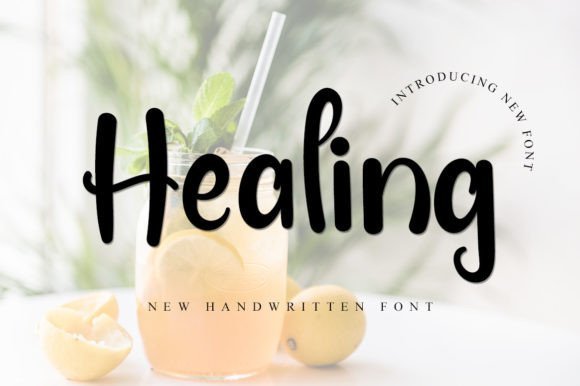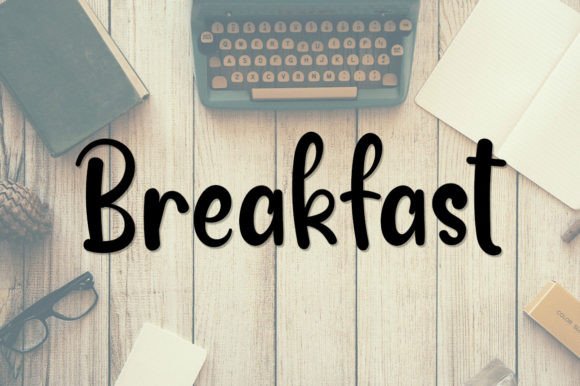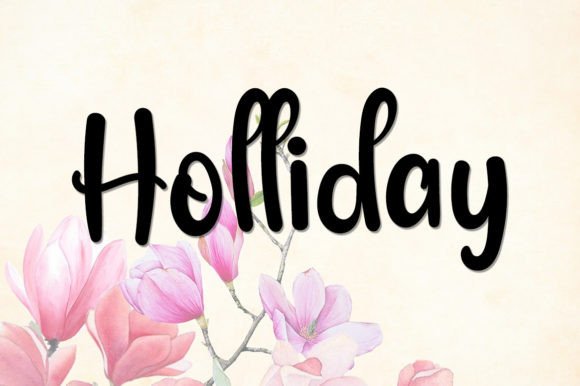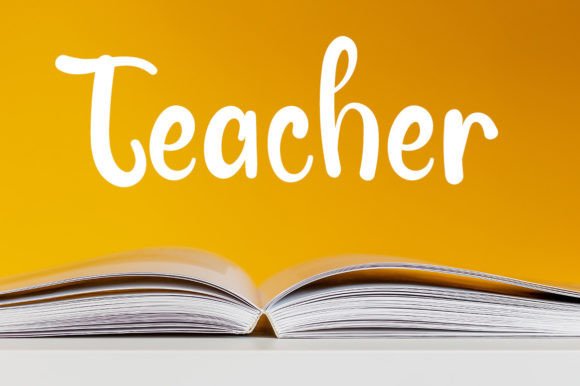
Discover the Power of Healing
There’s nothing quite like the thrill of creating something new. The blank page, the spark of an idea, and the rush of excitement as it all comes together. For designers, this feeling is a regular occurrence, but it’s one that never gets old. Whether you’re working on a personal project or a client brief, the process of bringing an idea to life is what makes it all worth it.
One of the key elements that can make or break a design is the font. And that’s where the Healing Font comes in – a beautiful, elegant, and joyful typeface that’s perfect for adding a touch of warmth to any project. Whether you’re working on a formal document or an informal social media post, this font is sure to bring a smile to your face and a sense of calm to your design.
Key Features of “Healing Font”
- Unique Characteristics: The font features a unique blend of modern and traditional elements, with intricate details and subtle nuances that evoke a sense of serenity and healing.
- Customization Options: The font includes a range of OpenType features, such as ligatures, swashes, and stylistic sets, allowing designers to add a personal touch and create unique typographic combinations.
Healing Font Review
Overall, I was quite impressed with the Healing Font, and here’s why:
- ✨ Beautiful, hand-drawn style that adds a touch of warmth to any design project.
- ✨ A wide range of styles, from casual to elegant, making it suitable for various applications.
- ✨ Good for creating a sense of serenity and calmness, which is perfect for wellness-related content.
However, there are some limitations that I’d like to point out:
- ⚠️ Limited character set and font sizes may not be suitable for large blocks of text.
- ⚠️ May not be the best choice for designs that require a more modern or edgy look.
Despite these limitations, I think the Healing Font is a great addition to any designer’s toolkit. It’s perfect for creating a soothing and calming atmosphere, and its hand-drawn style adds a unique touch to any design project. If you’re looking for a font that evokes feelings of serenity and relaxation, I’d definitely recommend giving the Healing Font a try.
Tip: Use the Healing Font in combination with soothing colors and gentle typography to create a calming atmosphere in your design.
Tip: Use the Healing Font in combination with subtle texture overlays to create a sense of depth and visual interest.
Tip: Use the Healing Font in combination with calming backgrounds and gentle animations to create a soothing presentation.
The Healing Font is ideal for:
- Meditation and mindfulness materials
- Therapy and counseling resources
- Wellness and self-care promotions
- Calming and soothing brand identities
Alternatives to Healing Font
Great Vibes is a beautiful, elegant script font that conveys a sense of serenity and calmness. It’s perfect for use in branding, packaging, and promotional materials where a touch of sophistication is required. Great Vibes is similar to Healing Font in its flowing, cursive style, but it’s more refined and polished, making it suitable for a wider range of applications.
Carolyna Pro is a modern, sans-serif font with a friendly and approachable feel. It’s ideal for use in digital products, social media, and advertising where a clean and concise message is essential. Compared to Healing Font, Carolyna Pro is more modern and minimalist, making it a great choice for projects that require a fresh and contemporary look.
Alex Brush is a elegant, handwritten font that exudes a sense of warmth and personality. It’s perfect for use in invitations, greeting cards, and other materials where a personal touch is required. While similar to Healing Font in its cursive style, Alex Brush has a more whimsical and playful feel, making it suitable for projects that require a touch of humor or personality.